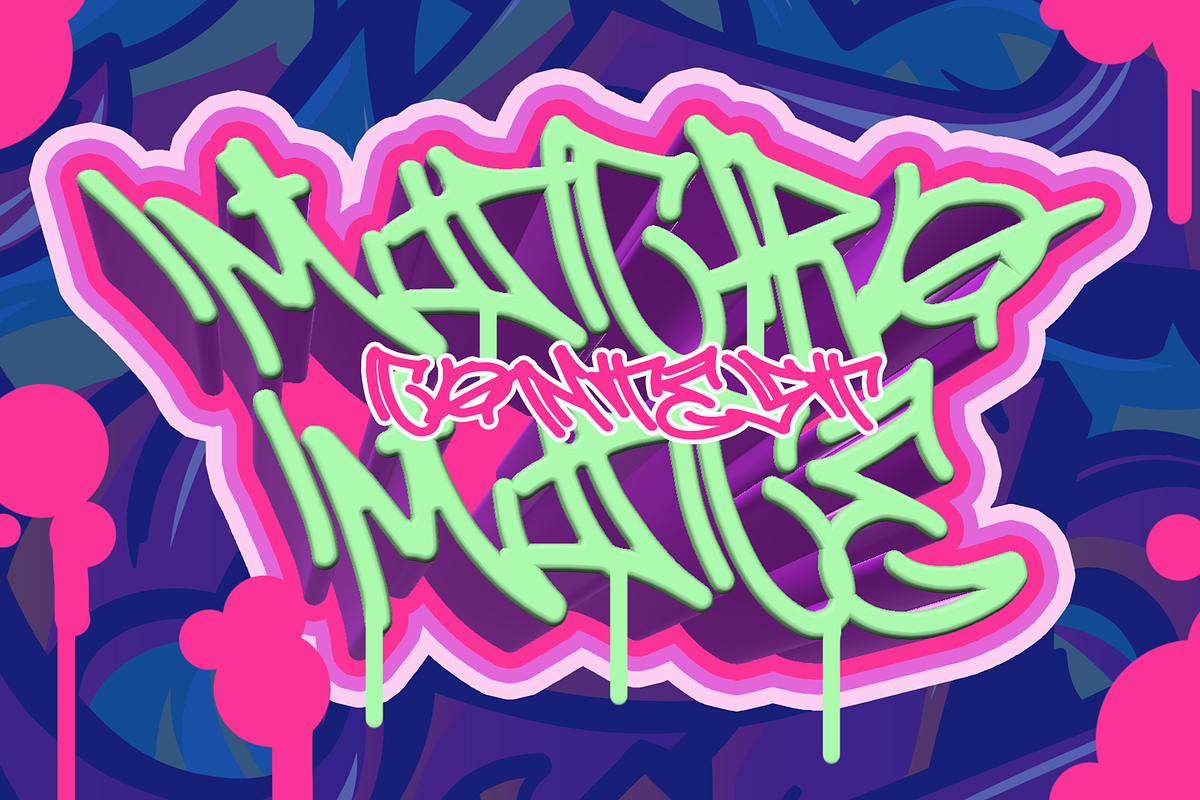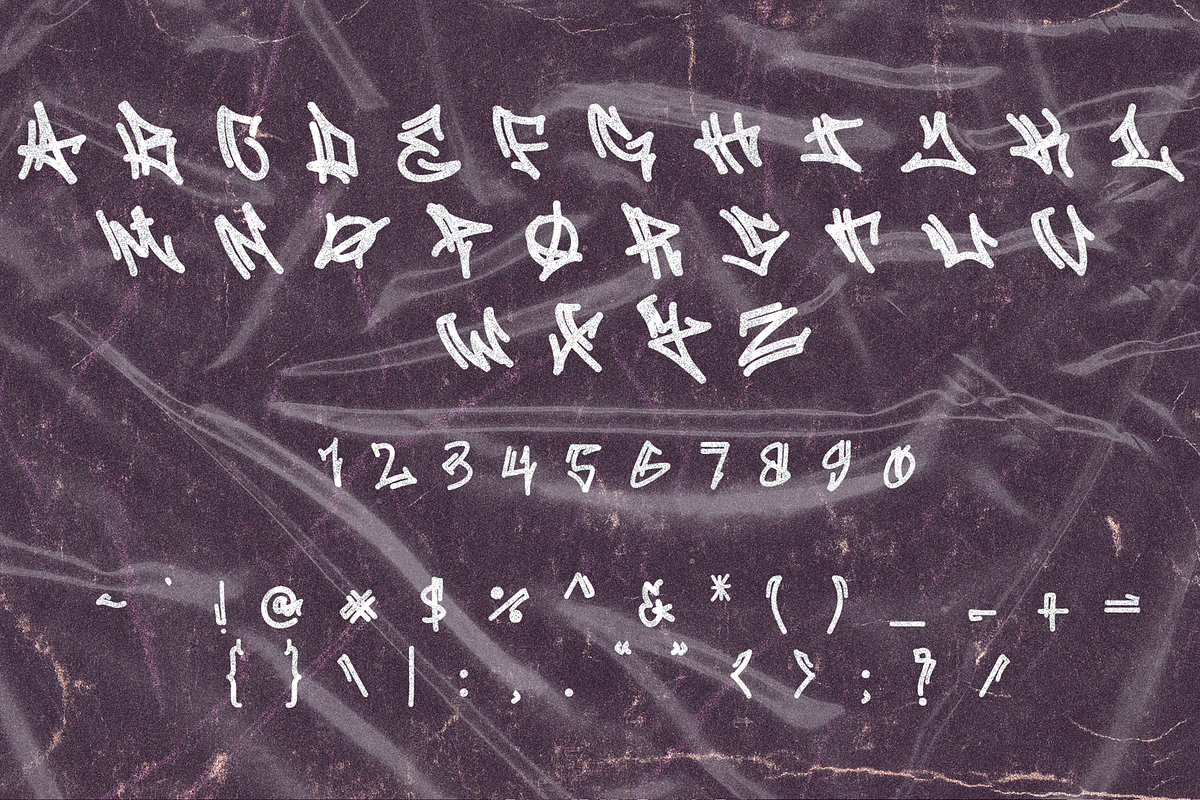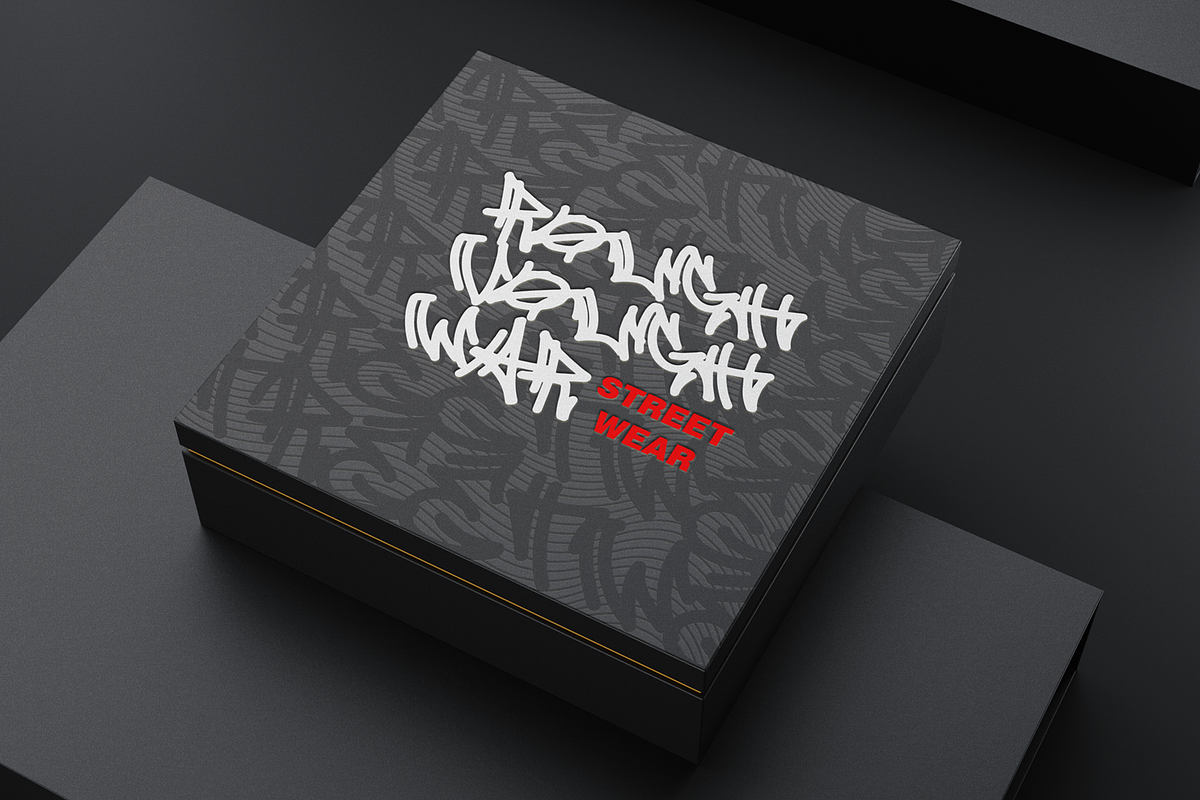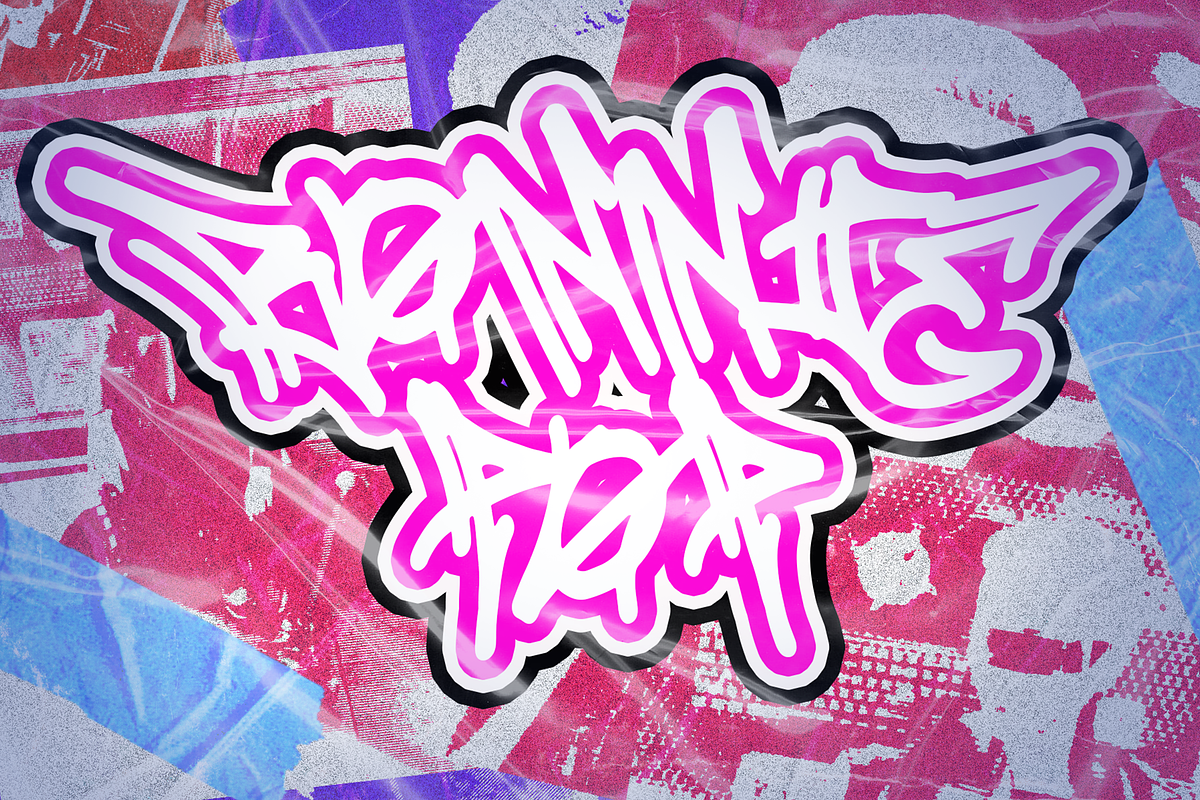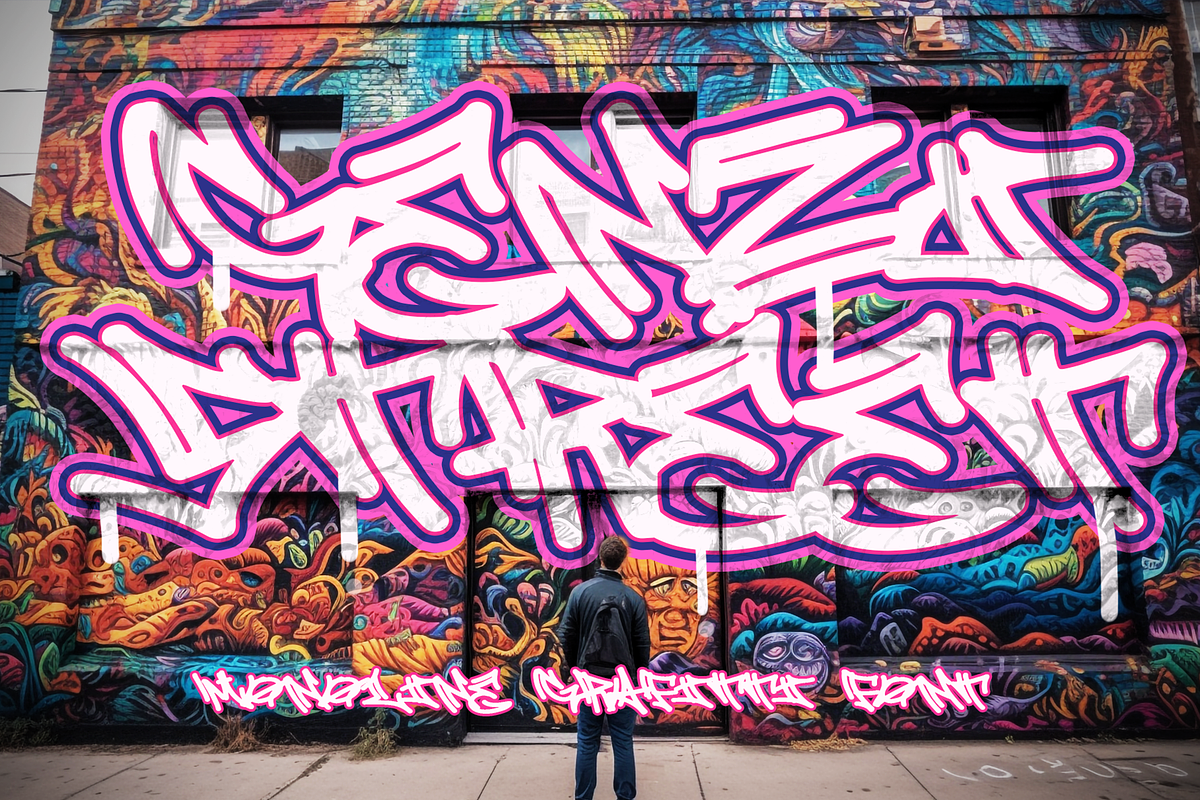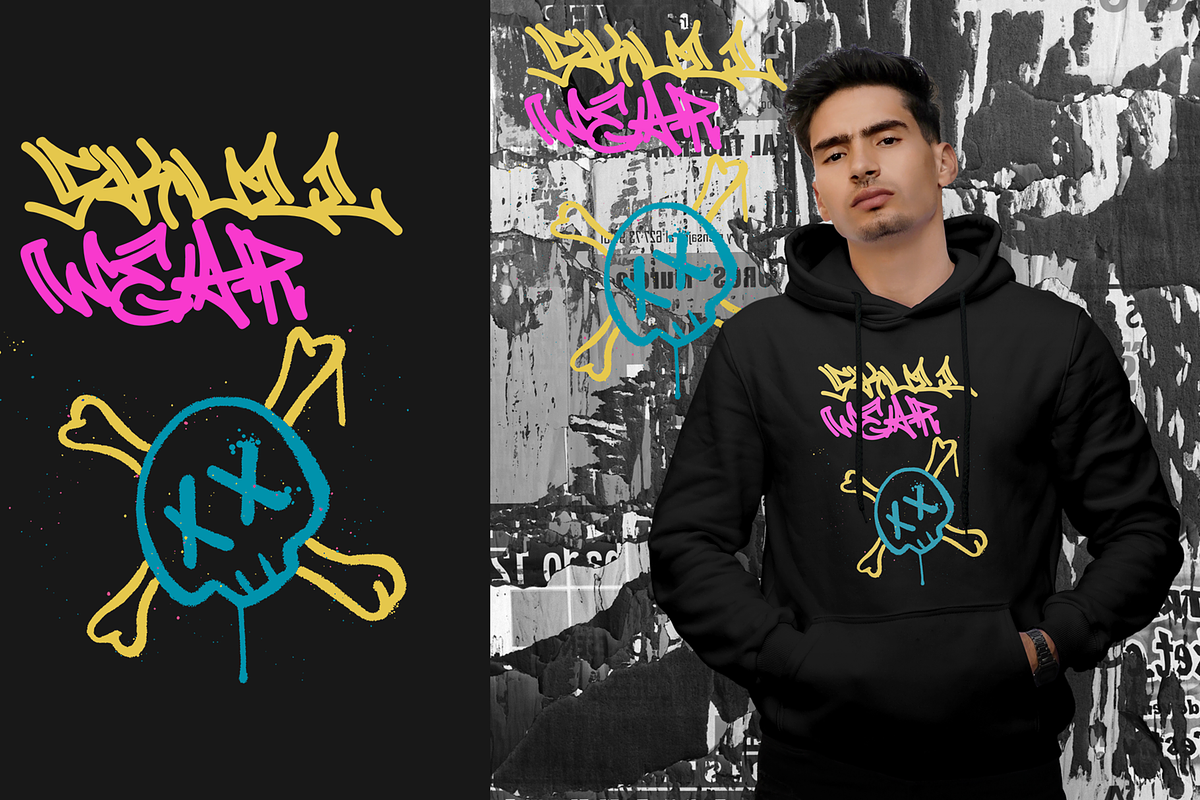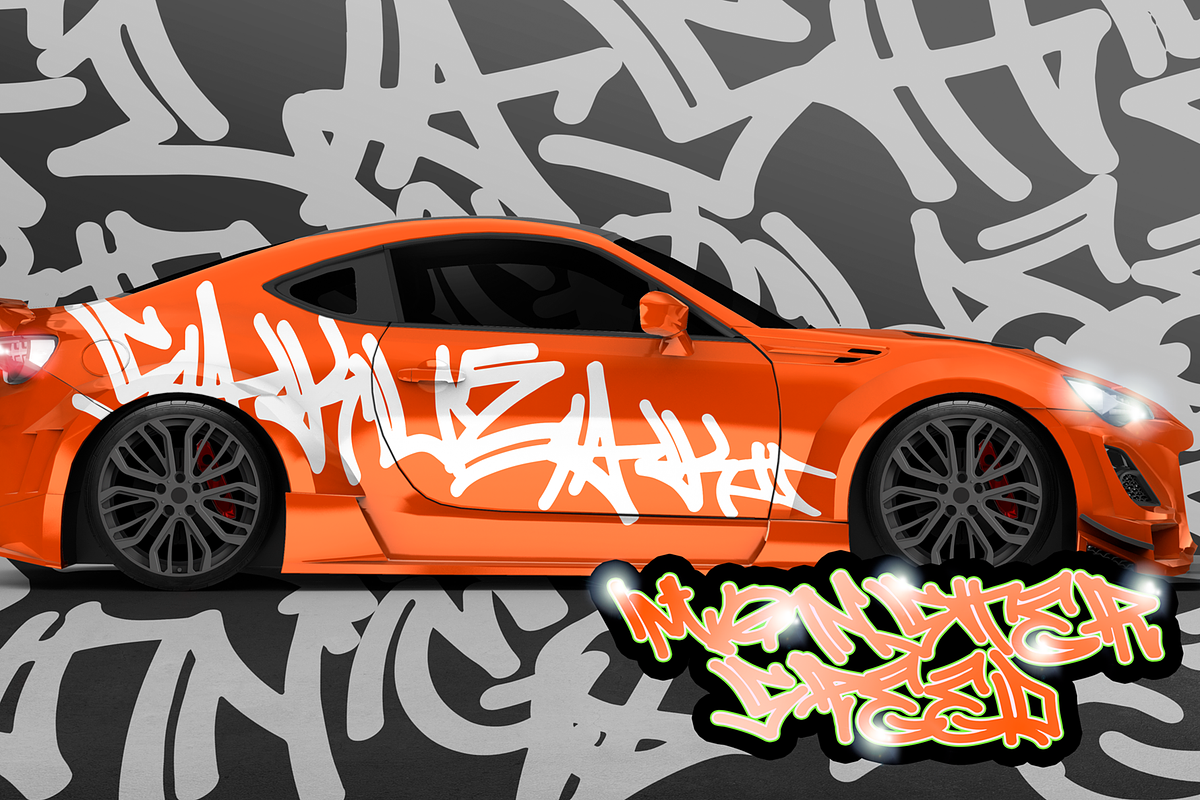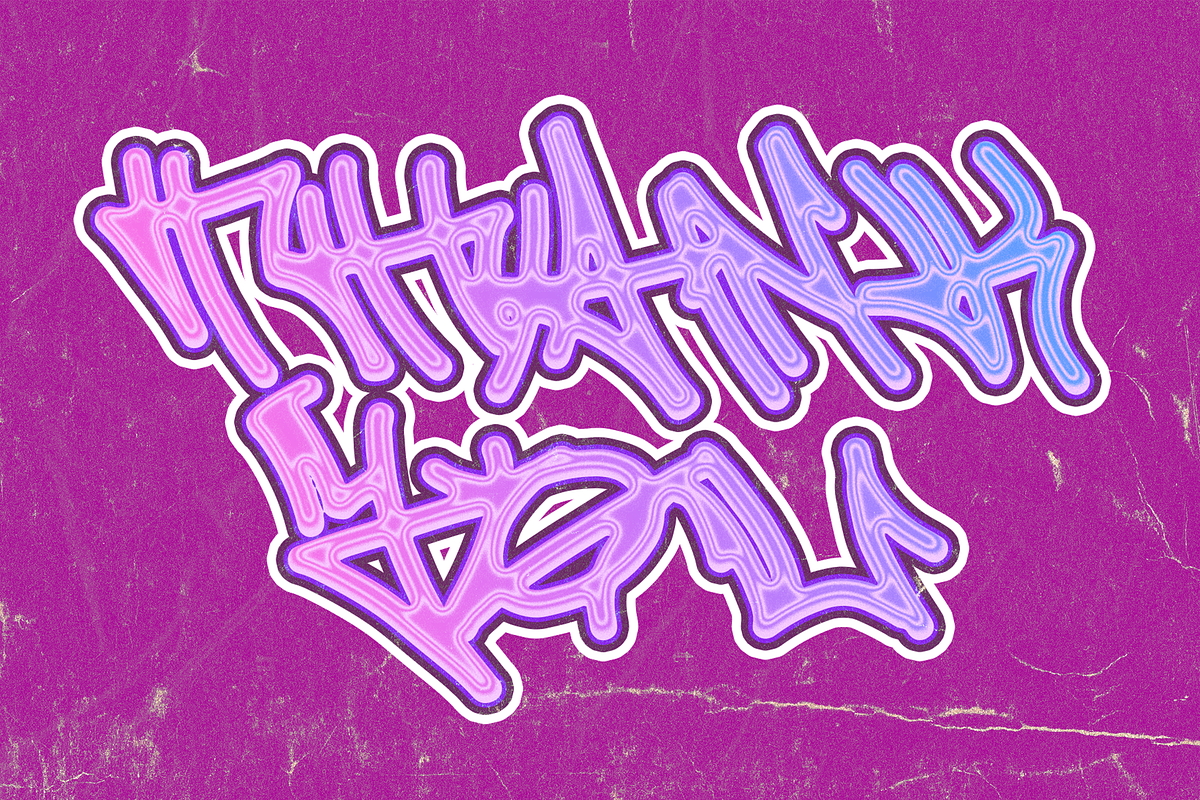
Genzi Street
Genzi Street is a monoline graffiti font with natural street handwritten accents. This font is perfect for a wide range of design projects with an urban or street theme. With its edgy and raw style, Genzi Street brings an authentic street vibe to your typography. Whether you're working on urban branding, streetwear designs, or any other project that requires a gritty and dynamic look, this font will add a touch of urban flair and make your designs stand out. Unleash your creativity and embrace the urban energy with Genzi Street font.